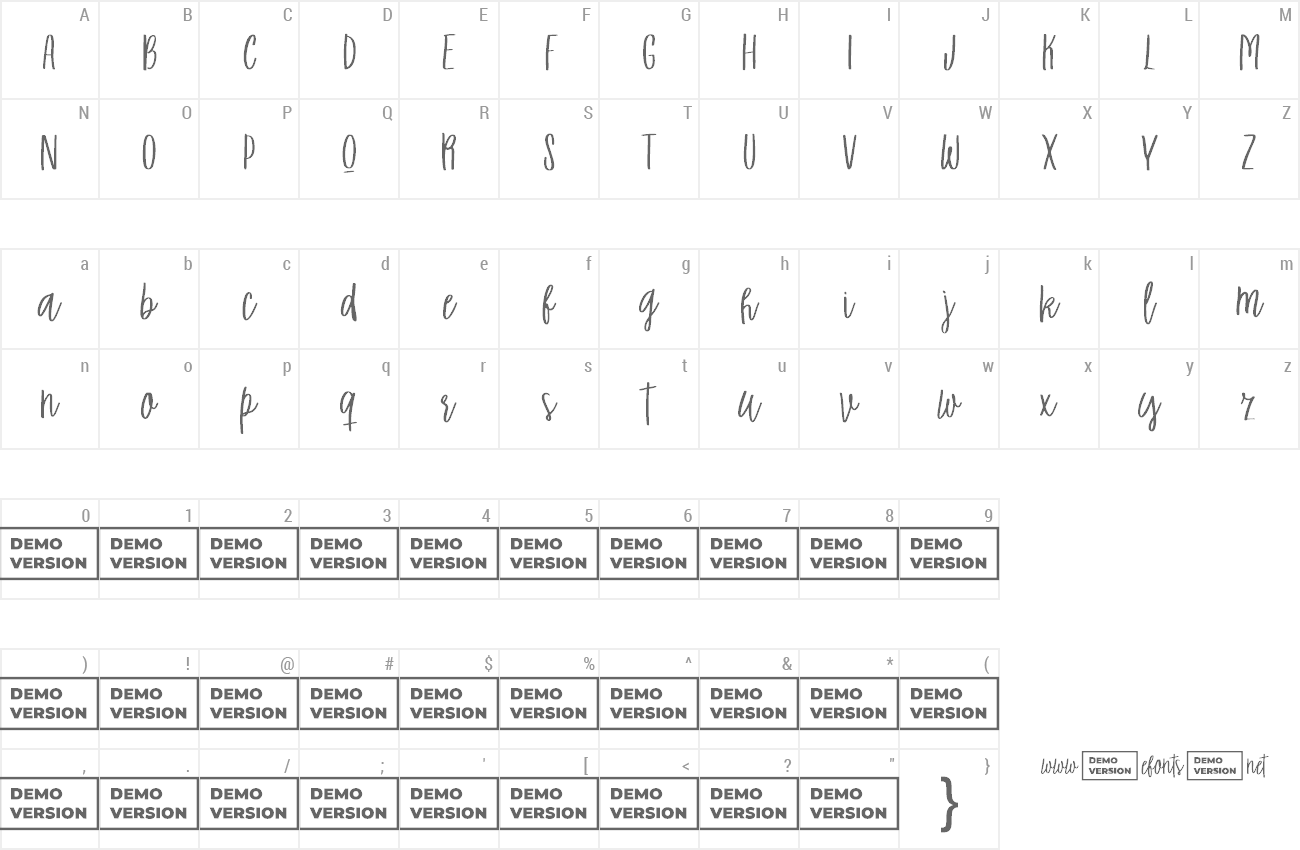
Preview and download Wonsmith Font. Created by Katsia Jazwinska in Script Handwritten styles with Demo license.
▪ ▪ ▪ ▪ ▪ ▪ ▪ ▪ ▪ ▪ ▪ ▪ ▪ ▪ ▪ ▪ ▪ ▪ ▪ ▪ ▪ ▪ ▪ ▪ ▪ ▪ ▪ ▪ ▪ ▪ ▪ ▪ This is the demo version which was made for you to try out the font in your projects. This means that for personal or commercial use you should purchase the font on the link: http://myfonts.us/WnIQD9 ▪ ▪ ▪ ▪ ▪ ▪ ▪ ▪ ▪ ▪ ▪ ▪ ▪ ▪ ▪ ▪ ▪ ▪ ▪ ▪ ▪ ▪ ▪ ▪ ▪ ▪ ▪ ▪ ▪ ▪ ▪ ▪ Wonsmith is a family of 3 handwritten script fonts, including latin and cyrillic alphabet and diacritic symbols, so the font can be used for most European languages. Ligatures of the most common letter pairs are included. If you want to receive product discounts subscribe newsletters on my website: https://www.katsiajazwinska.com/ For any questions, collaborations or custom fonts contact me on my e-mail: contact@katsiajazwinska.com More... |